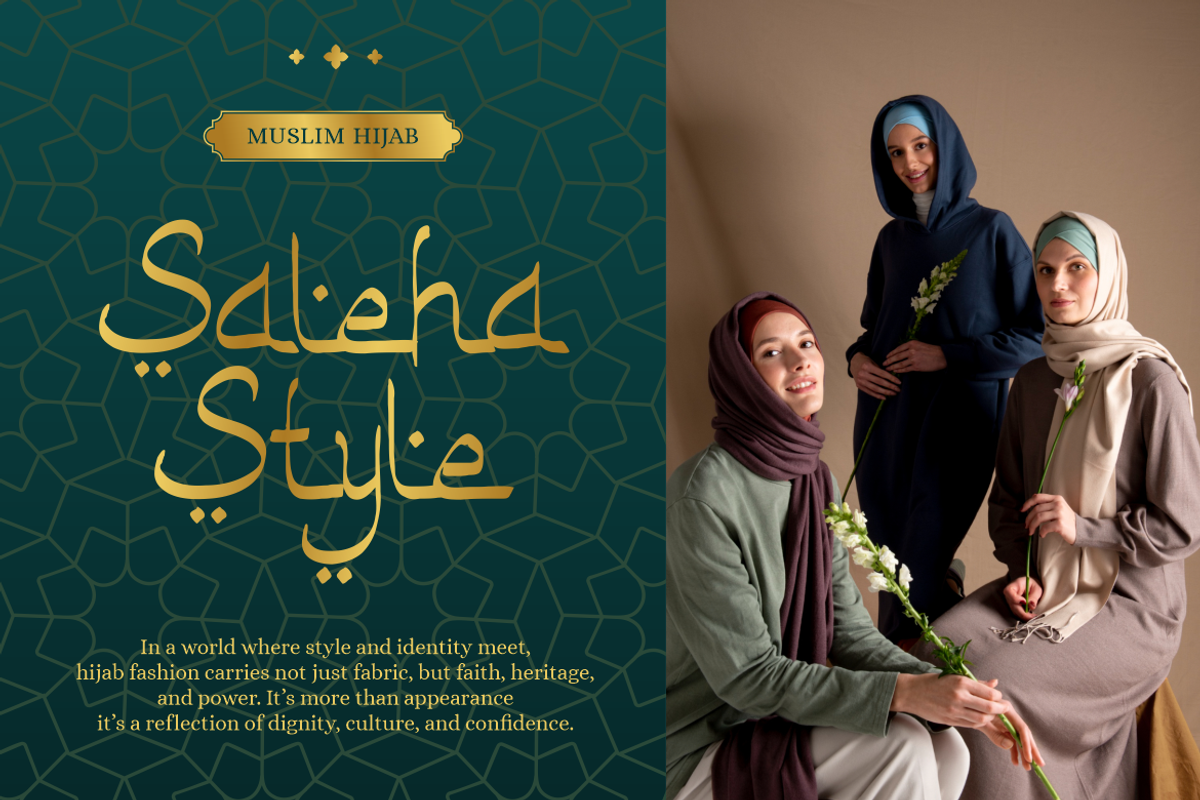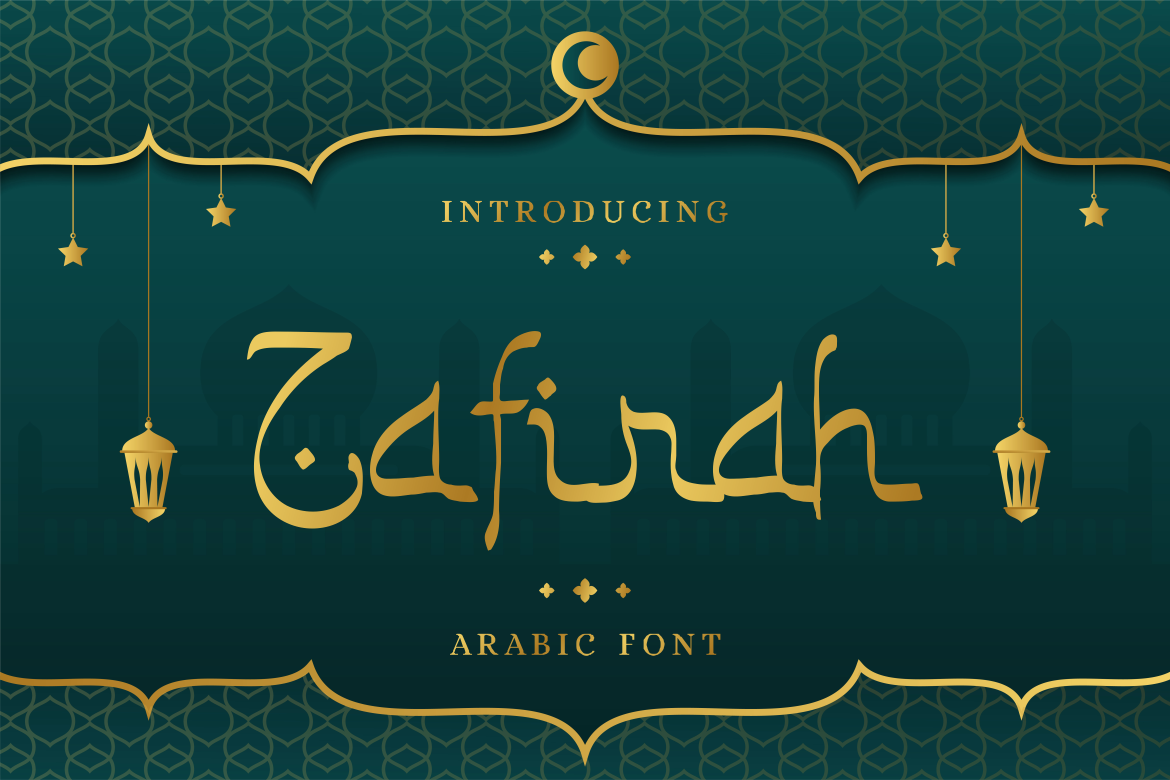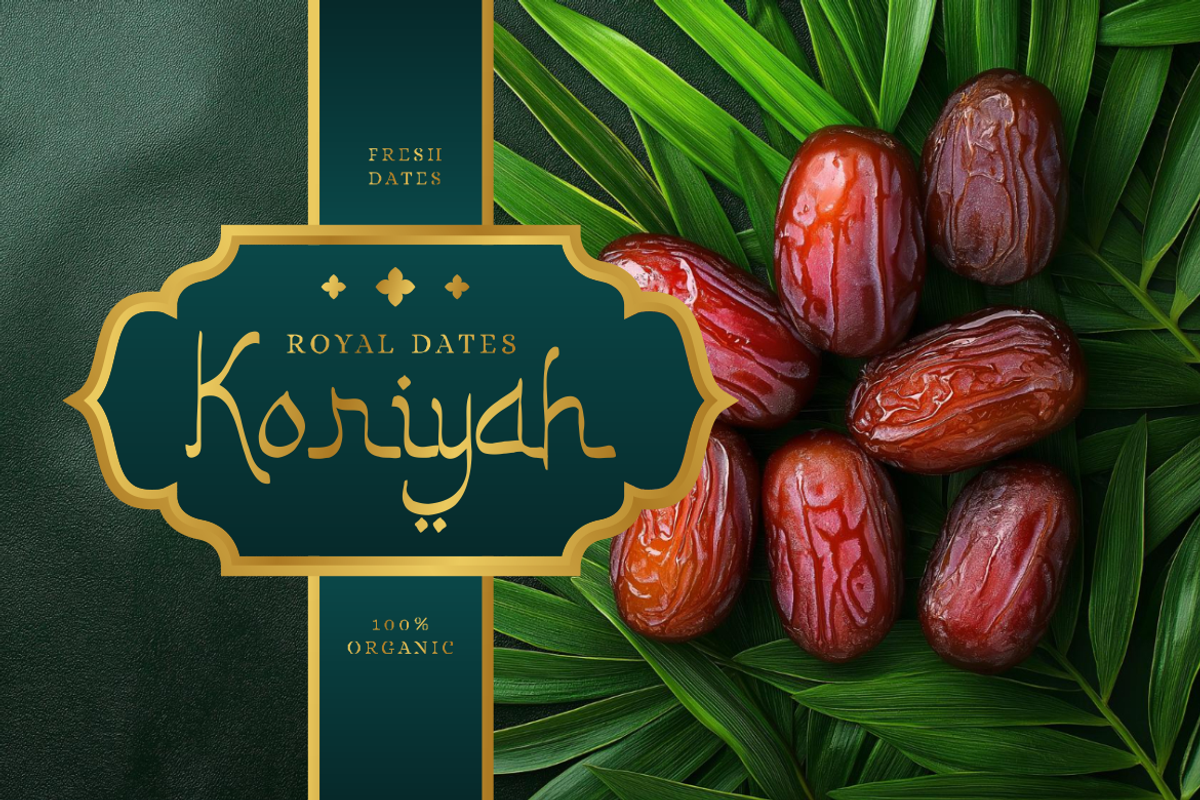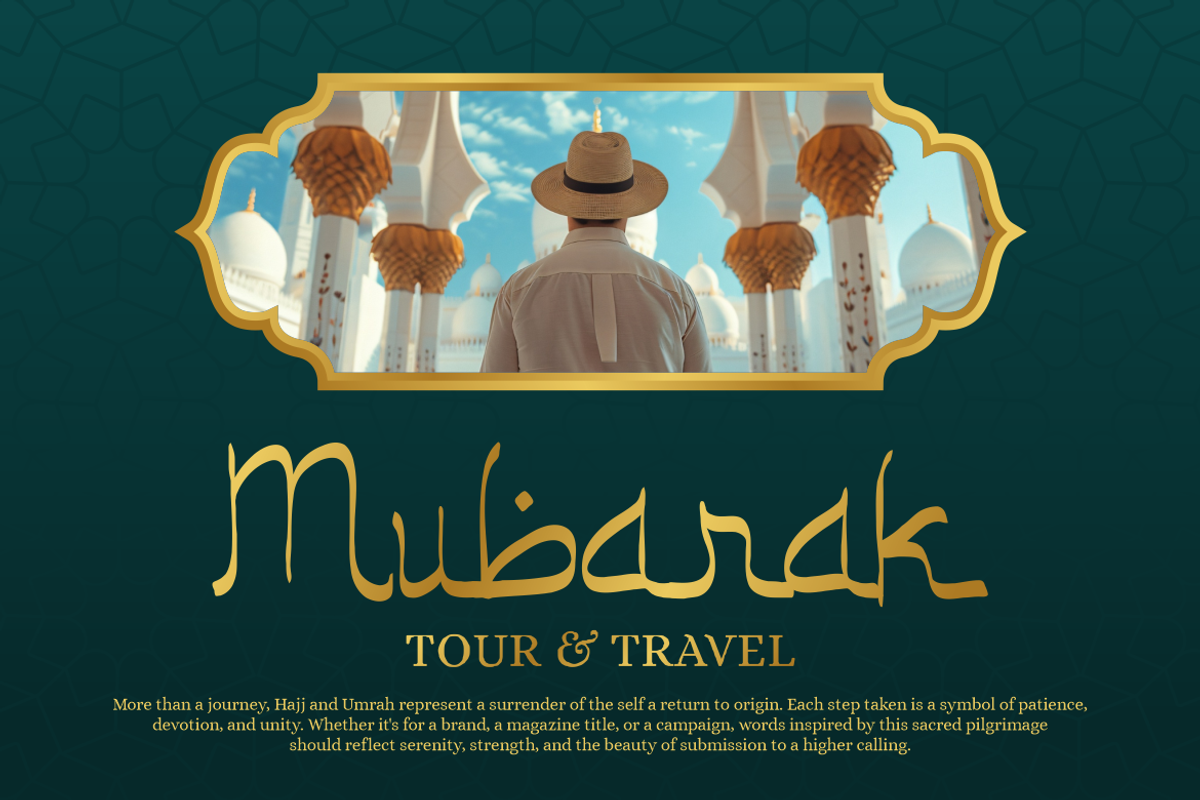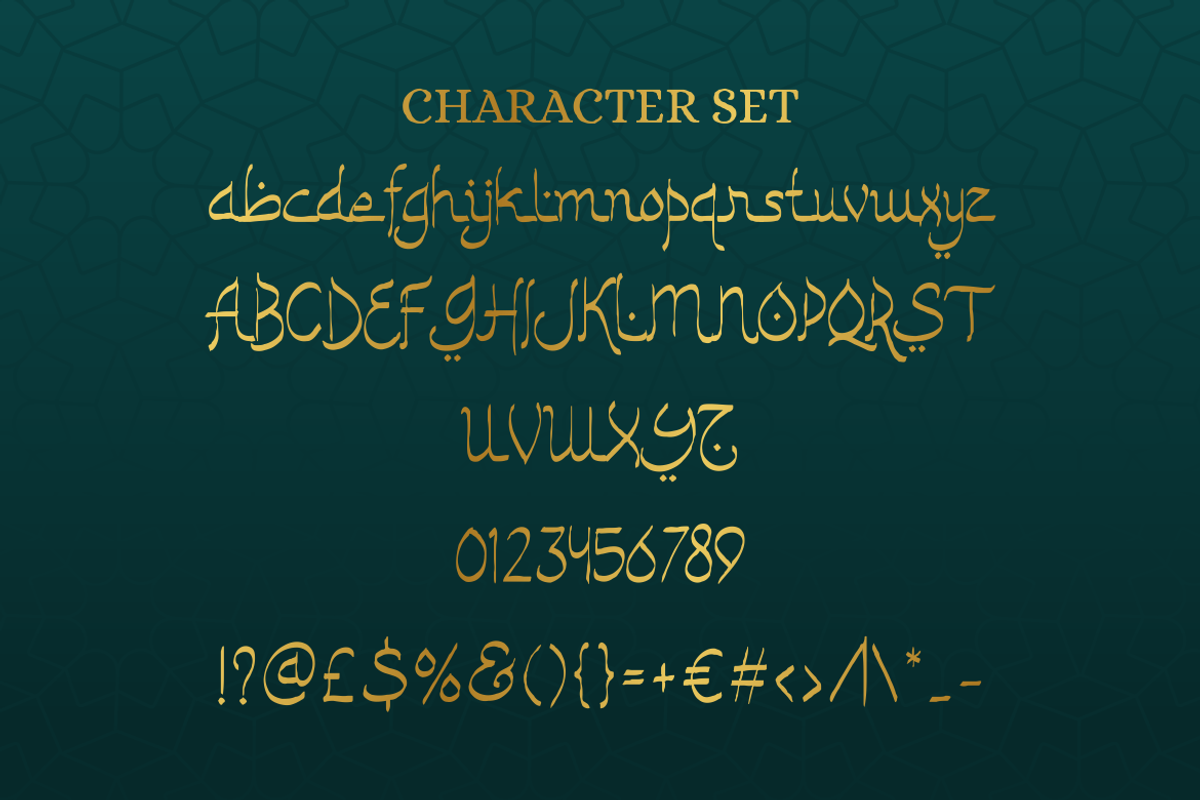
Zafirah Arabic Font
Zafirah Arabic Font is a refined script typeface that blends classical Arabic calligraphy with a clean modern structure. Each character shows flowing curves, balanced proportions, and controlled stroke contrast. The letterforms feel organic yet stable, with medium weight strokes that remain readable at various sizes. Subtle stroke endings add character without excessive ornamentation. The overall construction feels calm, graceful, and confident. This balance allows the font to express tradition while staying suitable for modern design needs. Zafirah Arabic Font delivers a strong cultural presence without appearing heavy or decorative. The spacing between characters feels natural and measured, helping words breathe clearly. This makes the font effective for both short headlines and longer display text. Its form communicates dignity, warmth, and authenticity. Designers can rely on its consistent rhythm and smooth flow across layouts. The script style feels respectful, timeless, and visually inviting. This font works especially well when clarity and cultural identity matter equally.
Zafirah Arabic Font fits a wide range of creative and commercial projects. It performs well for logo design, brand identities, and product packaging with Islamic or Middle Eastern themes. The font also suits posters, headlines, invitations, greeting cards, and editorial covers. Its legibility supports business use, while its elegance enhances premium presentations. Designers can use it for travel branding, fashion labels, religious events, or cultural campaigns. The font pairs well with minimal layouts and decorative accents alike. Zafirah Arabic Font supports expressive typography without sacrificing professionalism. It helps brands communicate trust, heritage, and refinement. Creative projects benefit from its versatile tone, which feels formal yet approachable. This typeface gives designers a reliable solution for Arabic inspired visuals across print and digital media.